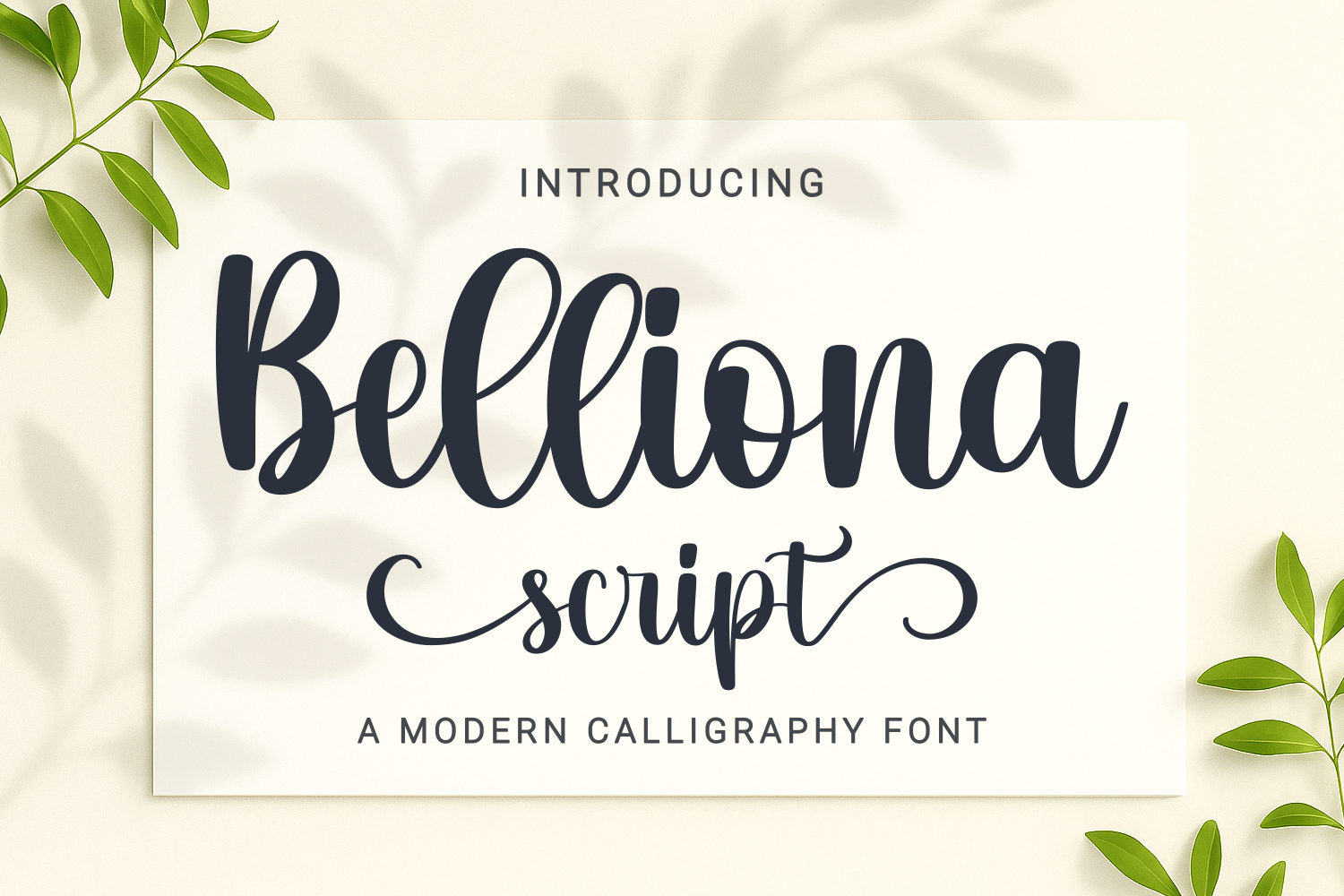
Belliona captures the beauty of modern calligraphy with graceful curves and a heartfelt handwritten touch. A perfect choice for weddings, branding, love quotes, and any design that deserves a romantic, elegant feel.